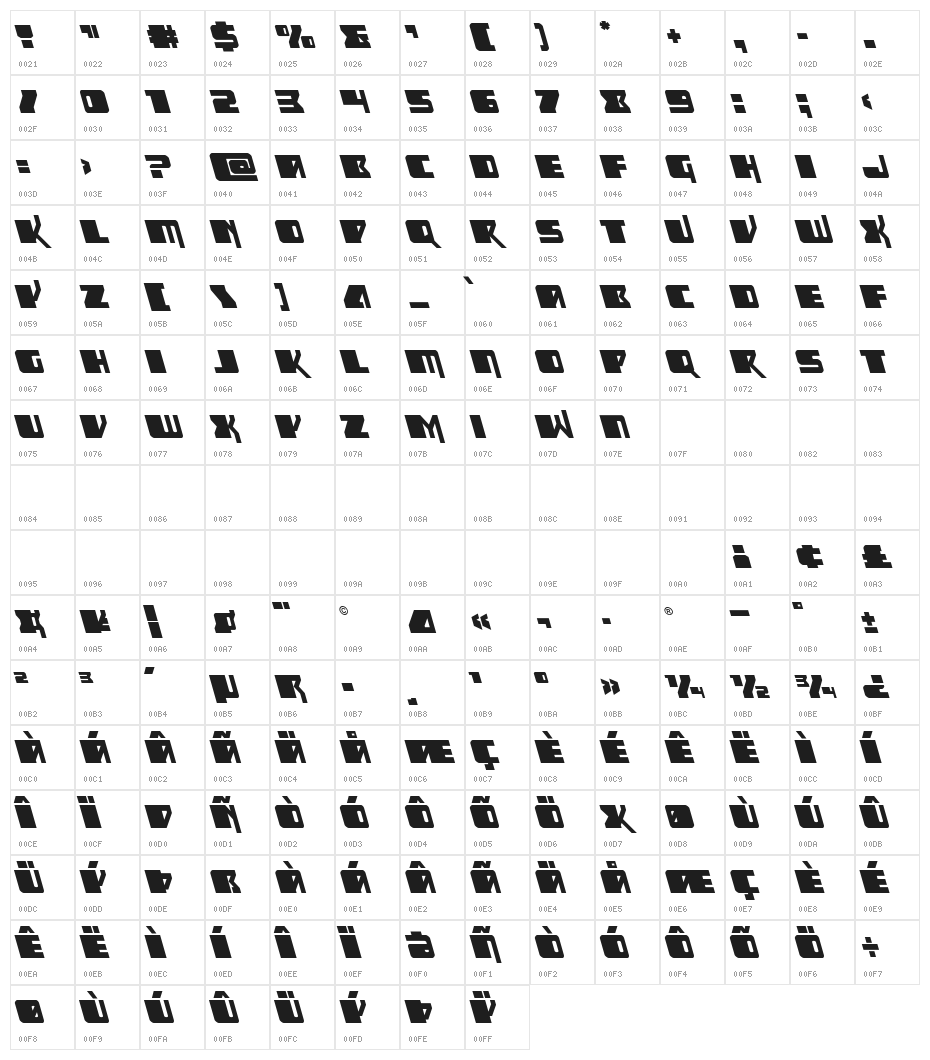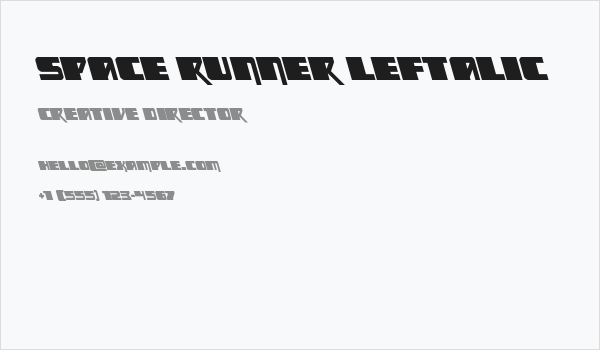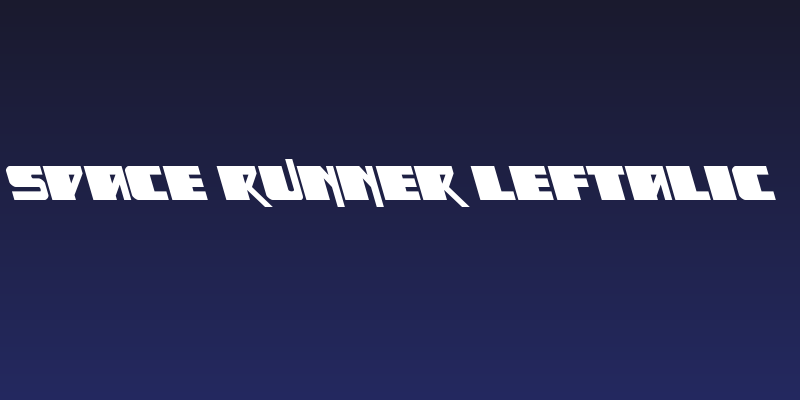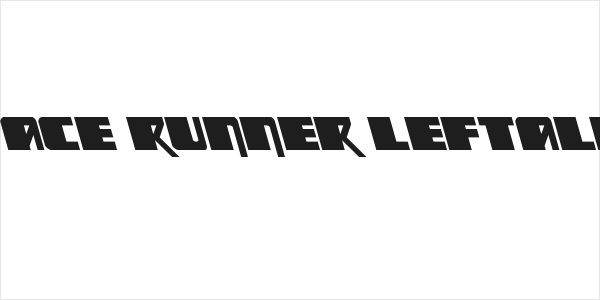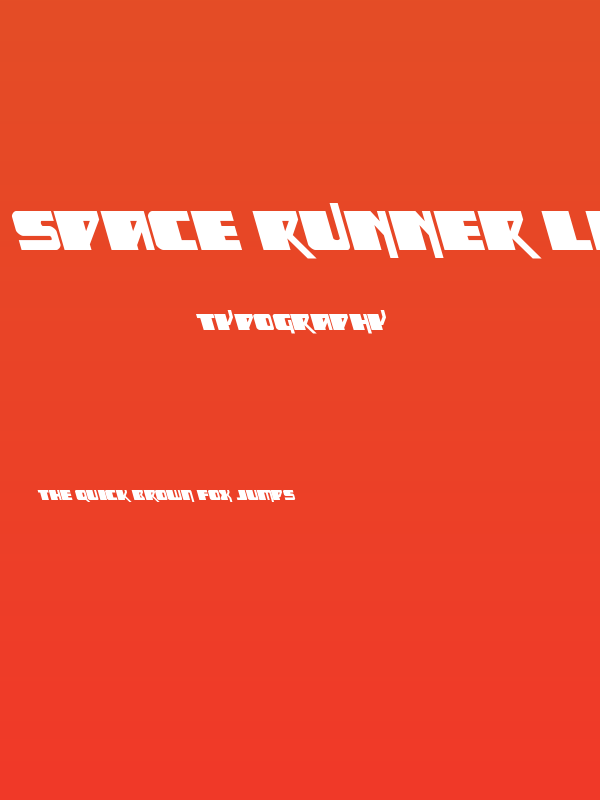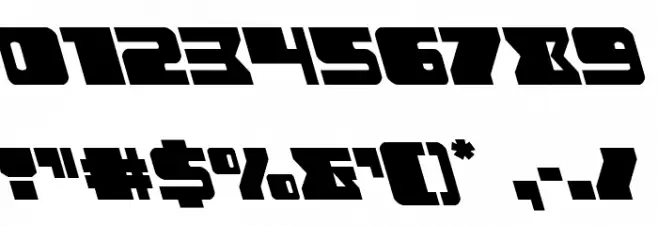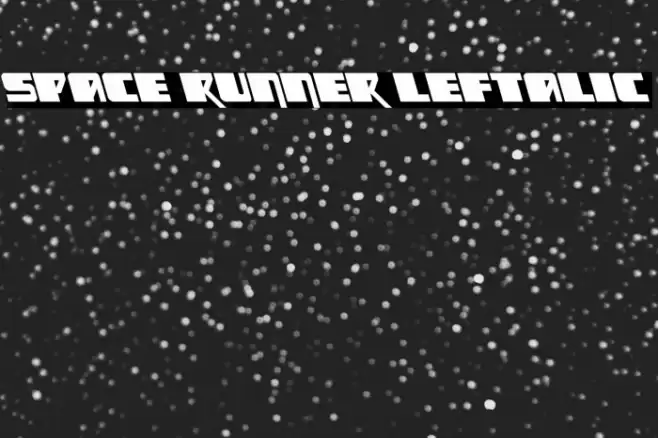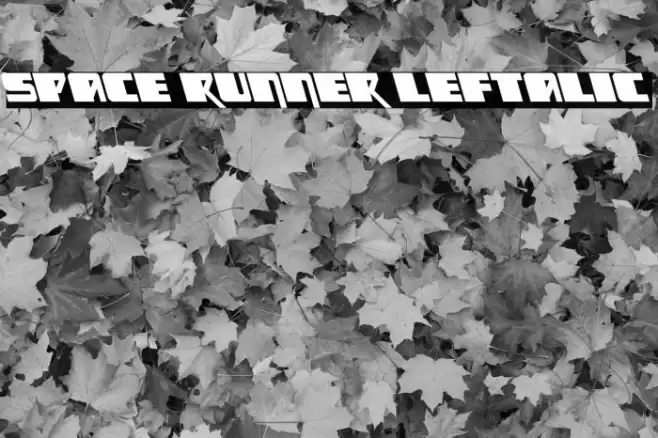
Space Runner Leftalic Font
Space Runner Leftalic Description
This font features a bold, futuristic design with angular, geometric shapes that convey a sense of speed and modernity. The characters are sharply cut with a distinct slant to the left, giving a dynamic and energetic feel. The uppercase and lowercase letters maintain a consistent style, with the lowercase slightly smaller but equally bold. Numbers and special characters follow the same angular and bold design, ensuring uniformity across all glyphs. The font's unique style makes it stand out, suitable for projects that require a modern, tech-inspired aesthetic.
| Proposed Projects | Ideal for sci-fi themed designs, video game titles, tech branding, and futuristic posters. |